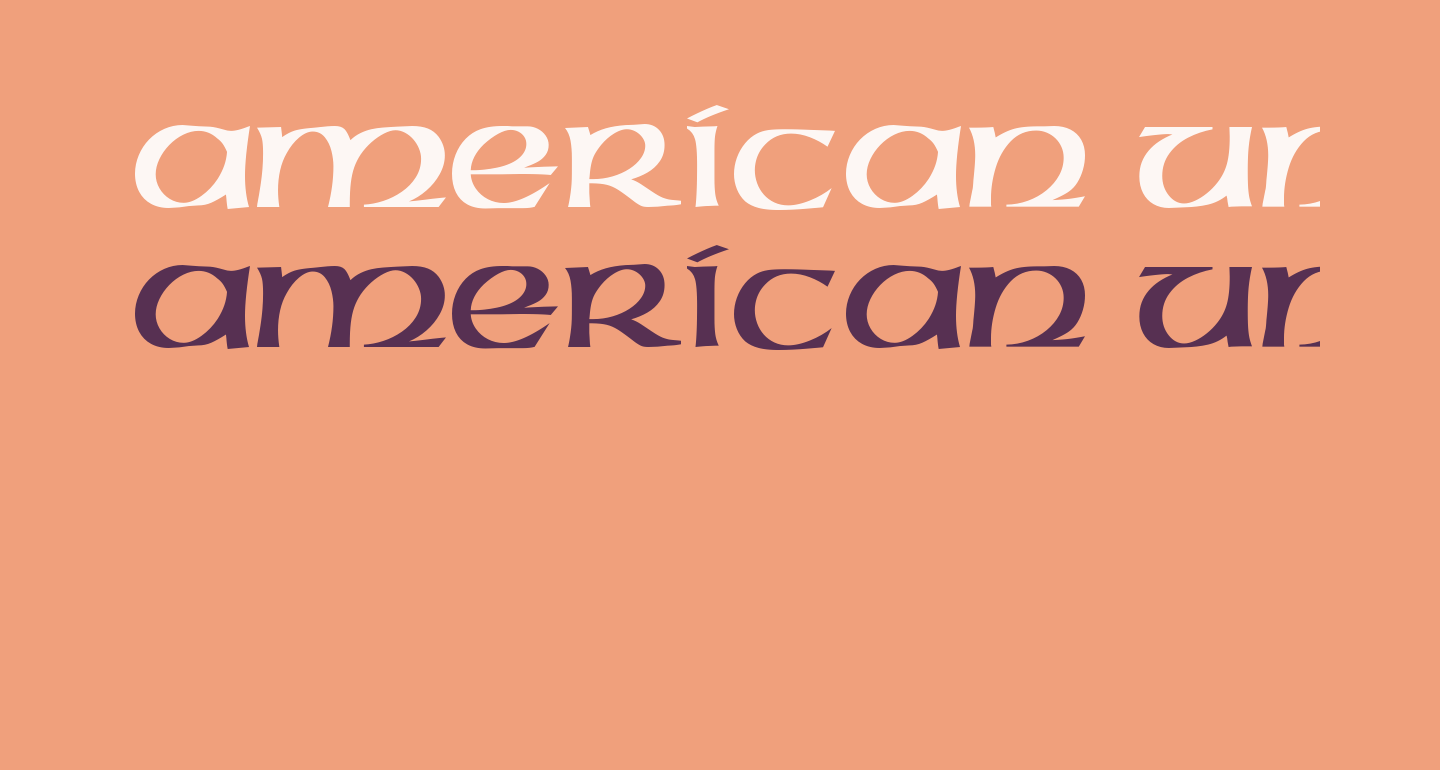
Font Style American Uncial . Looking for american uncial fonts? Click to find the best 1 free fonts in the american uncial style. Explore american uncial mn available at adobe fonts. A typeface with 1 style, available from adobe fonts for sync and web use. This font is from the american uncial family and we found 12. Every font is free to download! For the initials, see american uncial initials. The letters have simple, rounded strokes holding the pen in one. Download the american uncial font family. “american uncial was designed and cut by hand by.
A typeface with 1 style, available from adobe fonts for sync and web use. For the initials, see american uncial initials. This font is from the american uncial family and we found 12. Every font is free to download! Looking for american uncial fonts? Explore american uncial mn available at adobe fonts. “american uncial was designed and cut by hand by. Click to find the best 1 free fonts in the american uncial style. Download the american uncial font family. The letters have simple, rounded strokes holding the pen in one.
Font Style American Uncial Download the american uncial font family. Every font is free to download! This font is from the american uncial family and we found 12. “american uncial was designed and cut by hand by. For the initials, see american uncial initials. The letters have simple, rounded strokes holding the pen in one. Explore american uncial mn available at adobe fonts. A typeface with 1 style, available from adobe fonts for sync and web use. Download the american uncial font family. Click to find the best 1 free fonts in the american uncial style. Looking for american uncial fonts?